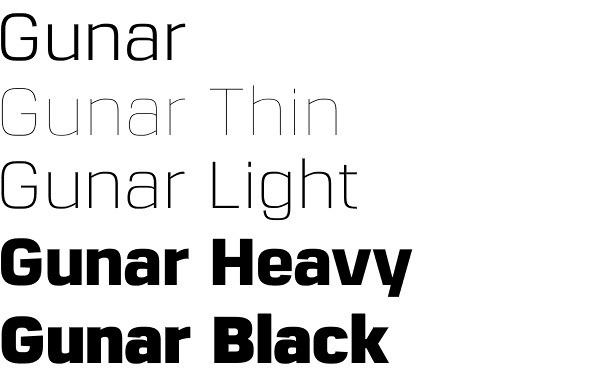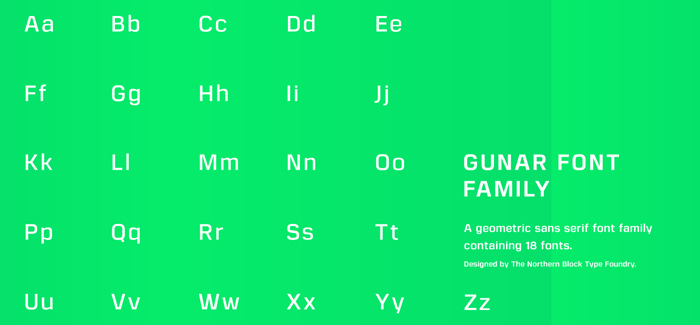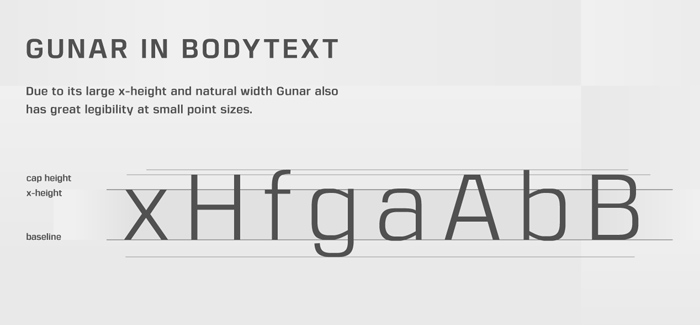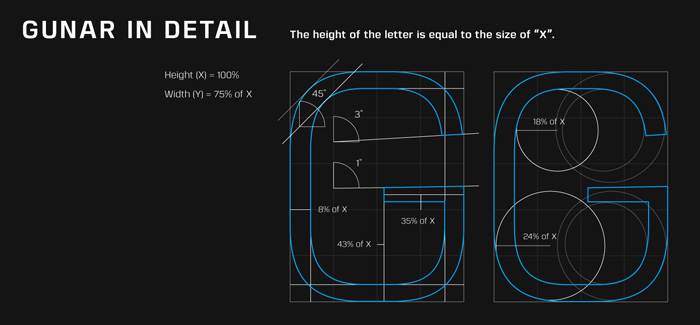
Gunar font
Gunar font by Jonathan Hill is a geometric sans serif with a square chiseled appearance. Precise curves are met with straight lines and tapered angles to produce a fresh, technical typeface. It’s large x-height and neutral width give it good legibility at small point sizes. These refined rectangular features make it ideally suited to a wide range of modern applications. Details include 550 characters with alternative lowercase a, e, g and y. 5 variations of numerals, manually edited kerning and Opentype features.
Designers: Jonathan Hill
Publisher: The Northern Block